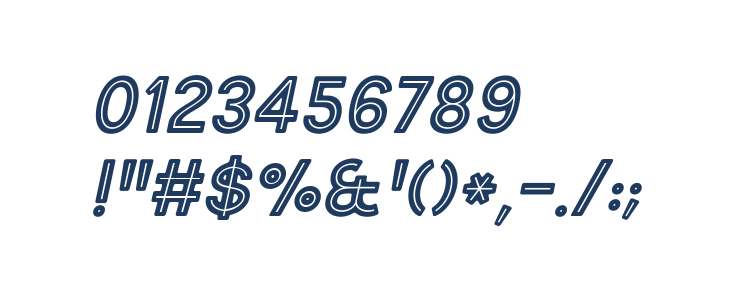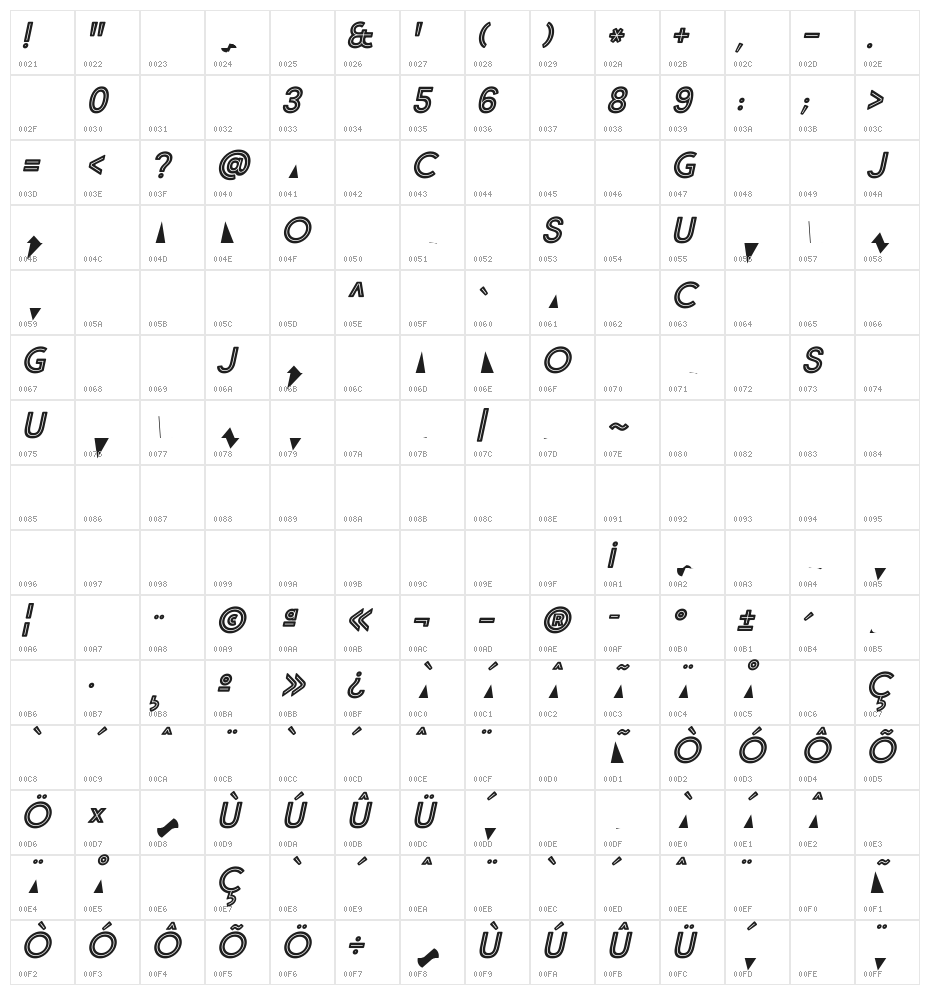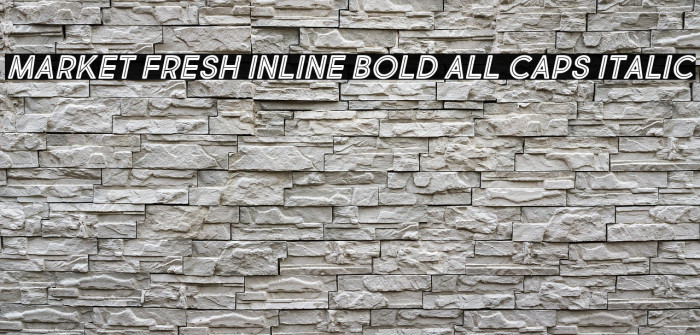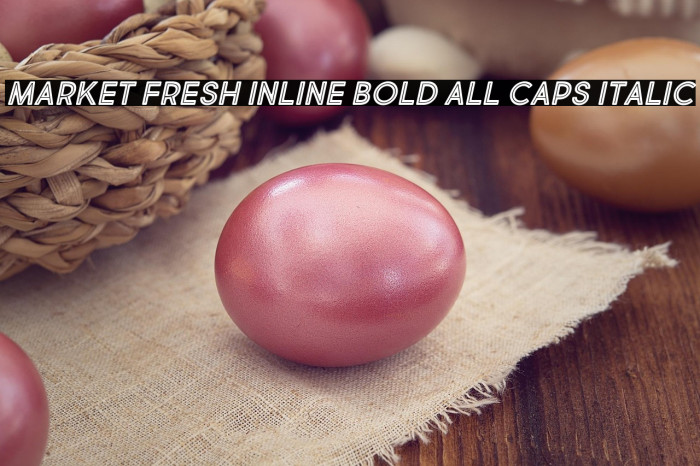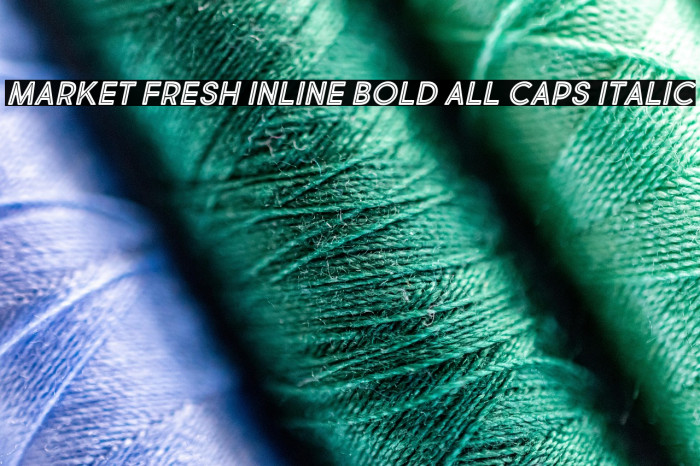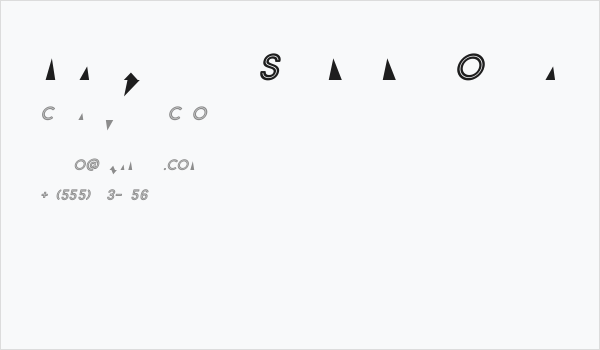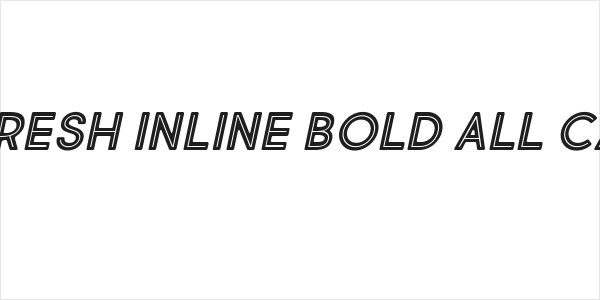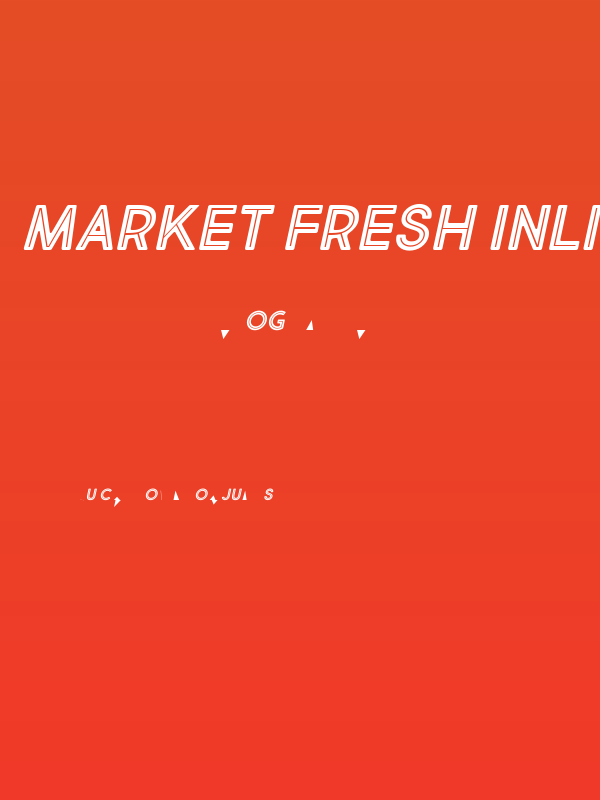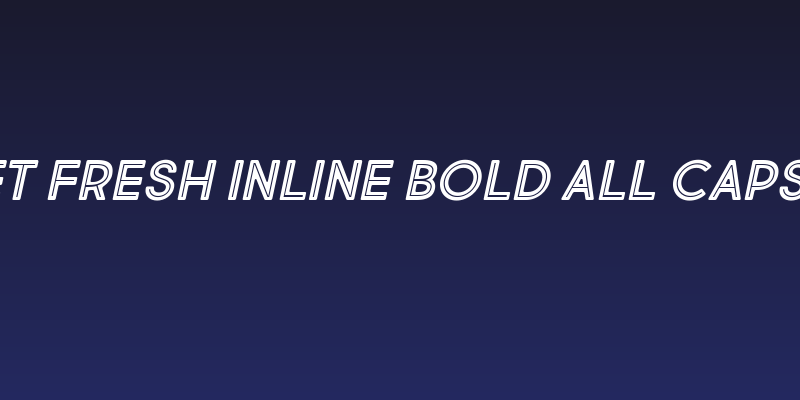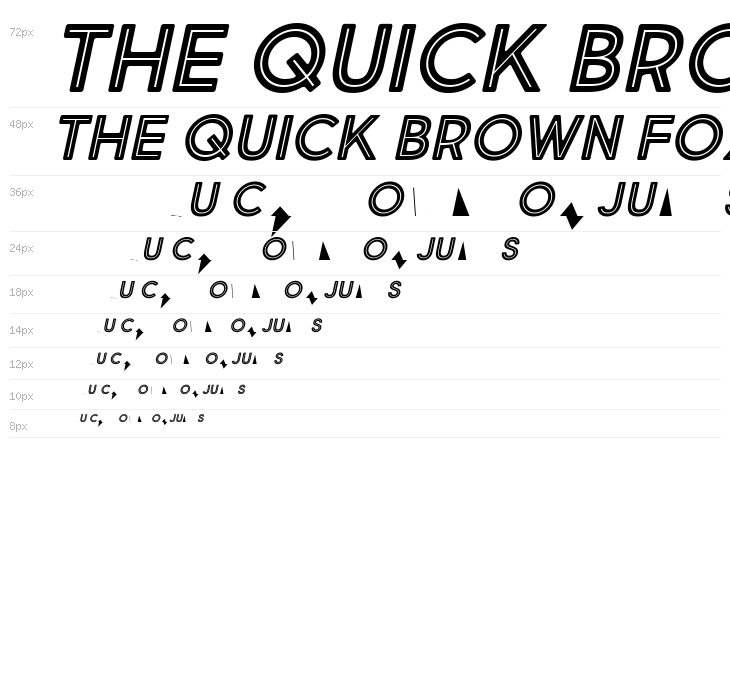
Market Fresh Inline Bold All Caps Italic Font
Market Fresh Inline Bold All Caps Italic Description
This font features a bold, inline style with all capital letters presented in an italicized form. The design is modern and eye-catching, with a distinct outline that adds depth and dimension to each character. The letters are evenly spaced, ensuring readability while maintaining a stylish appearance. The numerals and special characters follow the same bold, inline, and italicized style, making them consistent with the alphabetic characters. This font is ideal for projects that require a strong visual impact and a contemporary feel.
| Proposed Projects | Ideal for branding, headlines, posters, and advertising materials where a bold statement is needed. |